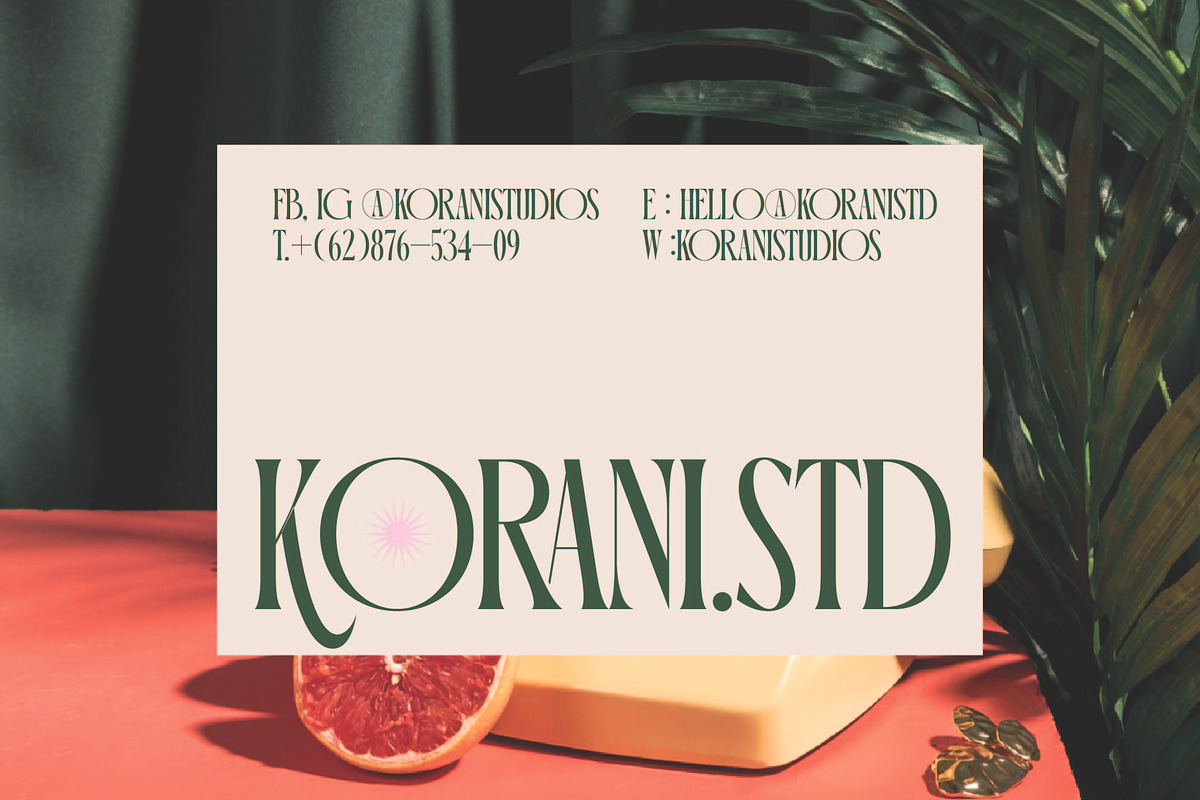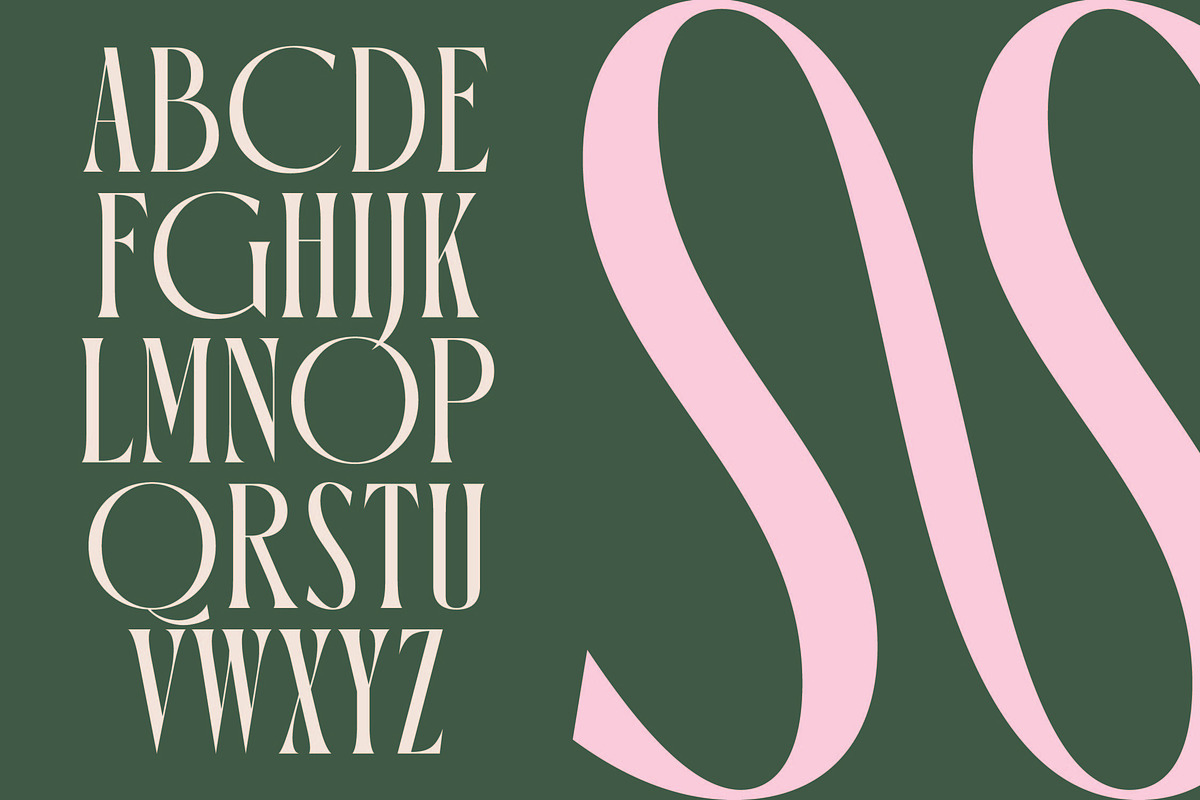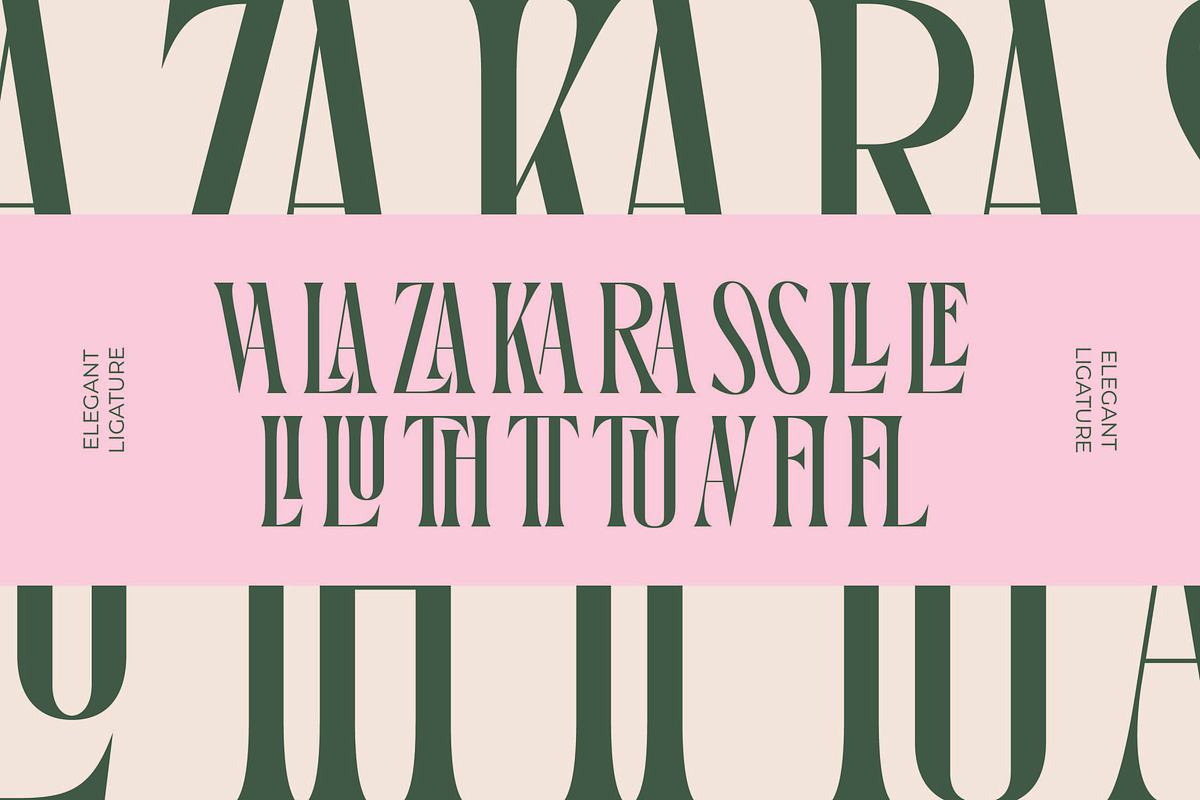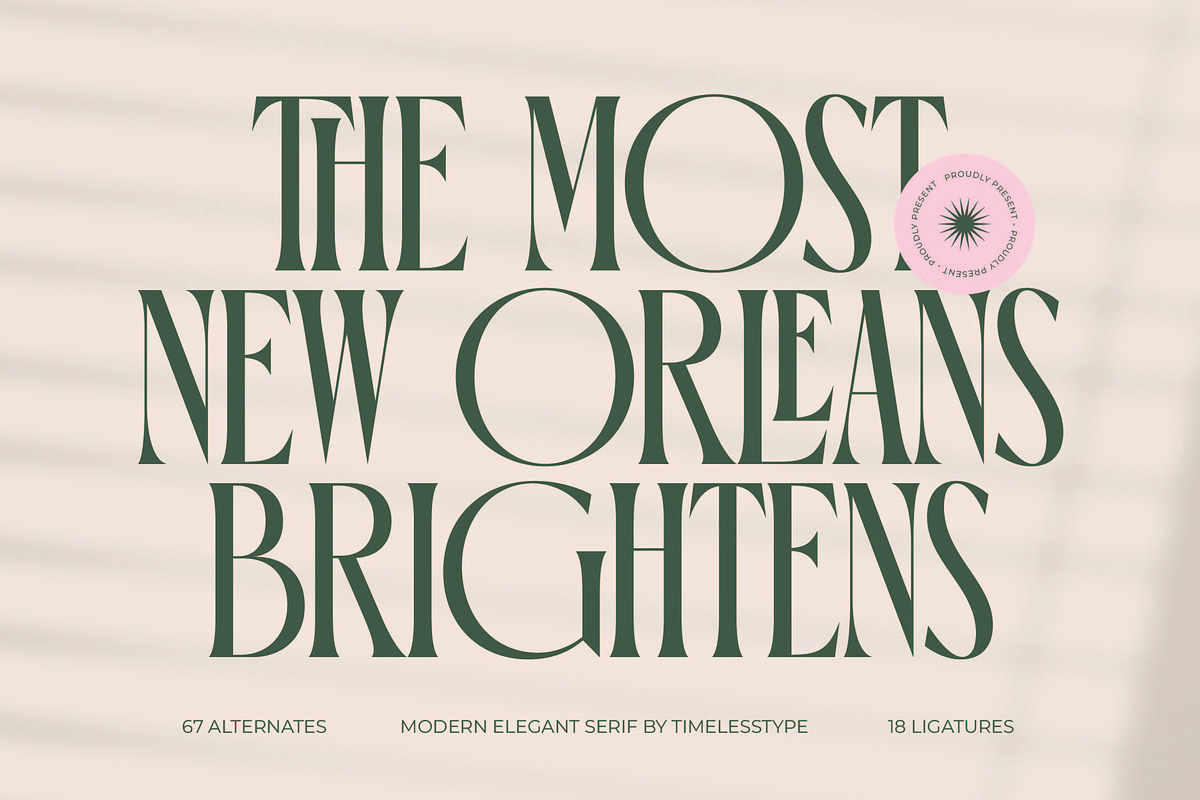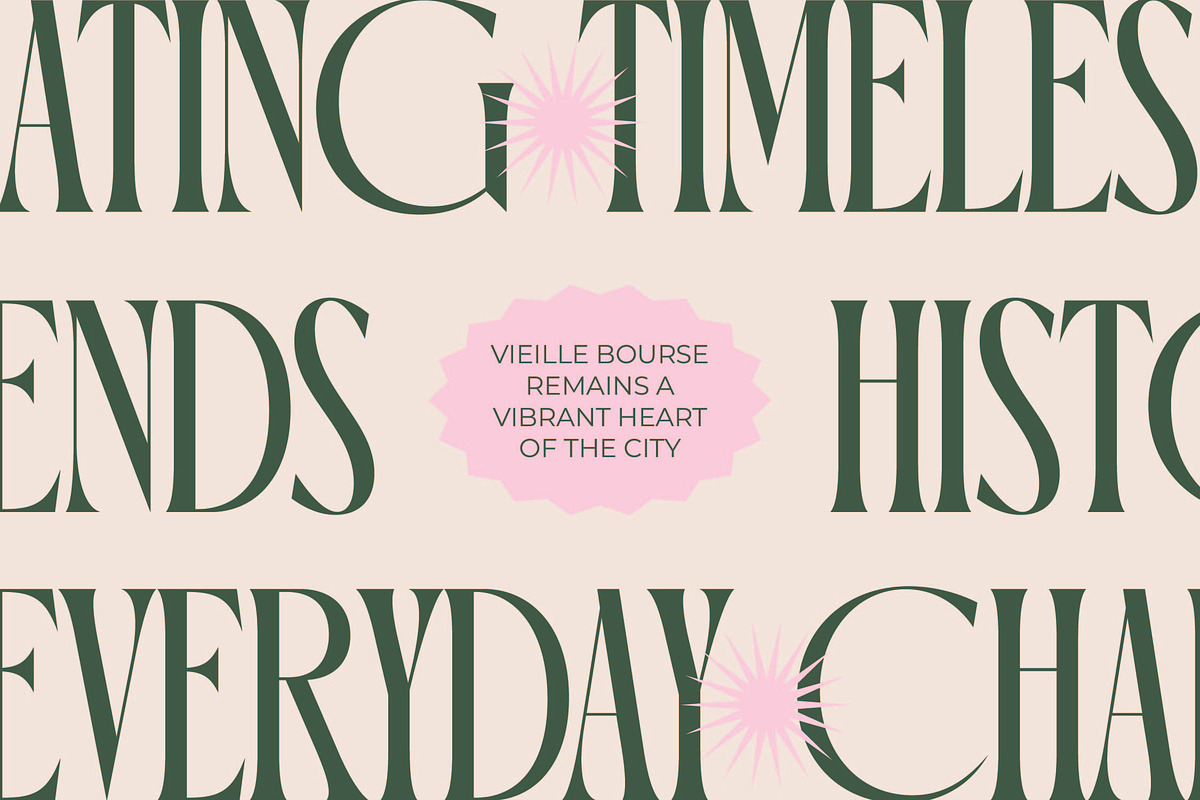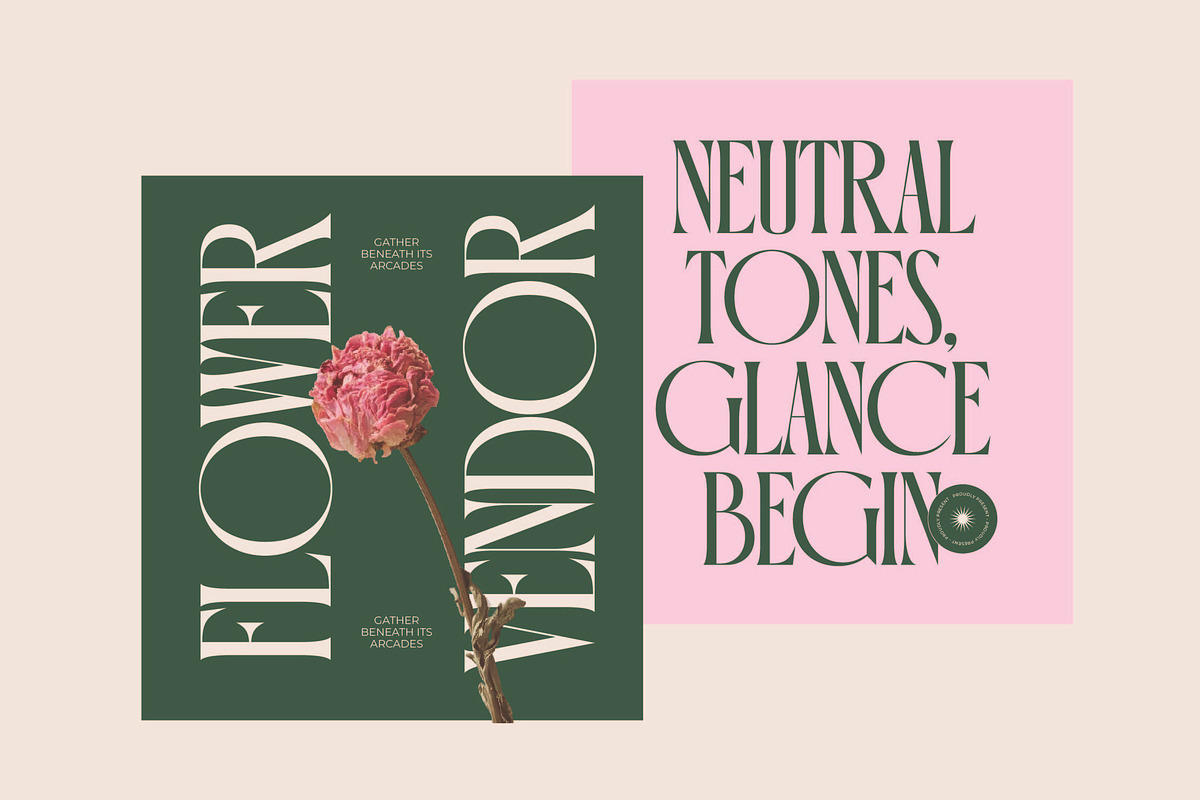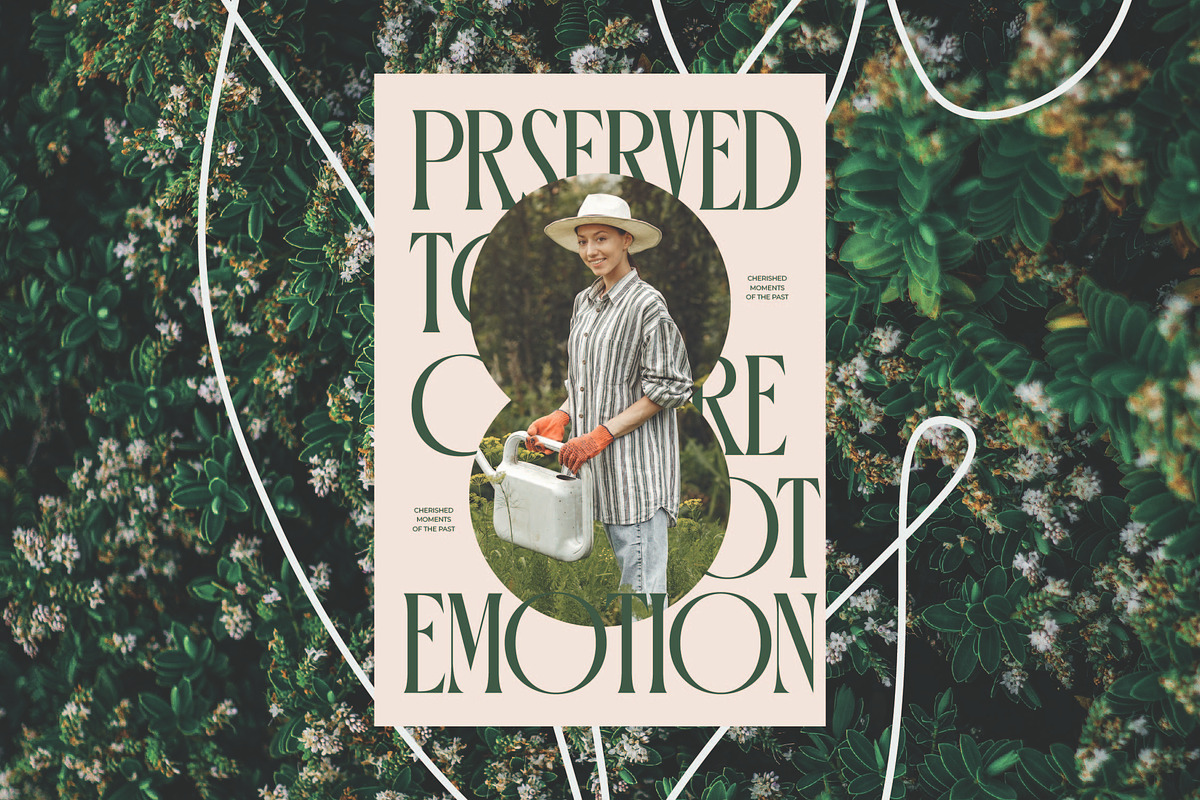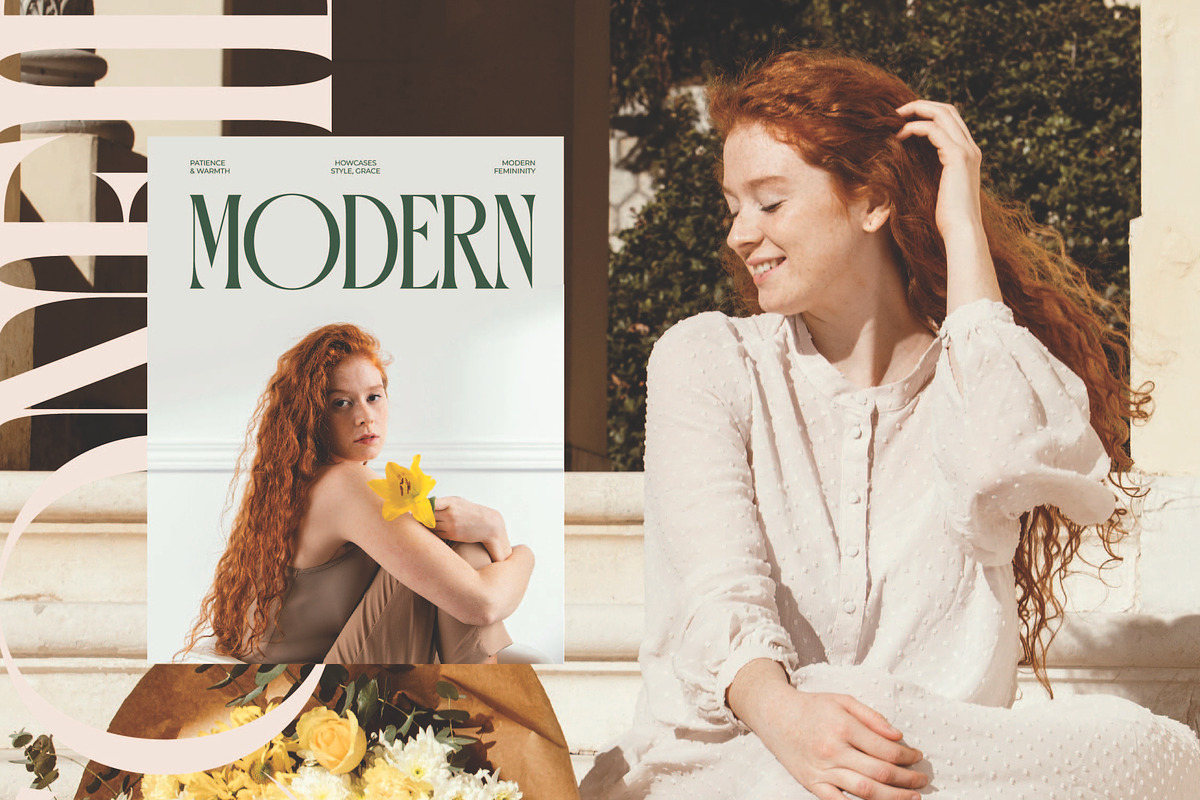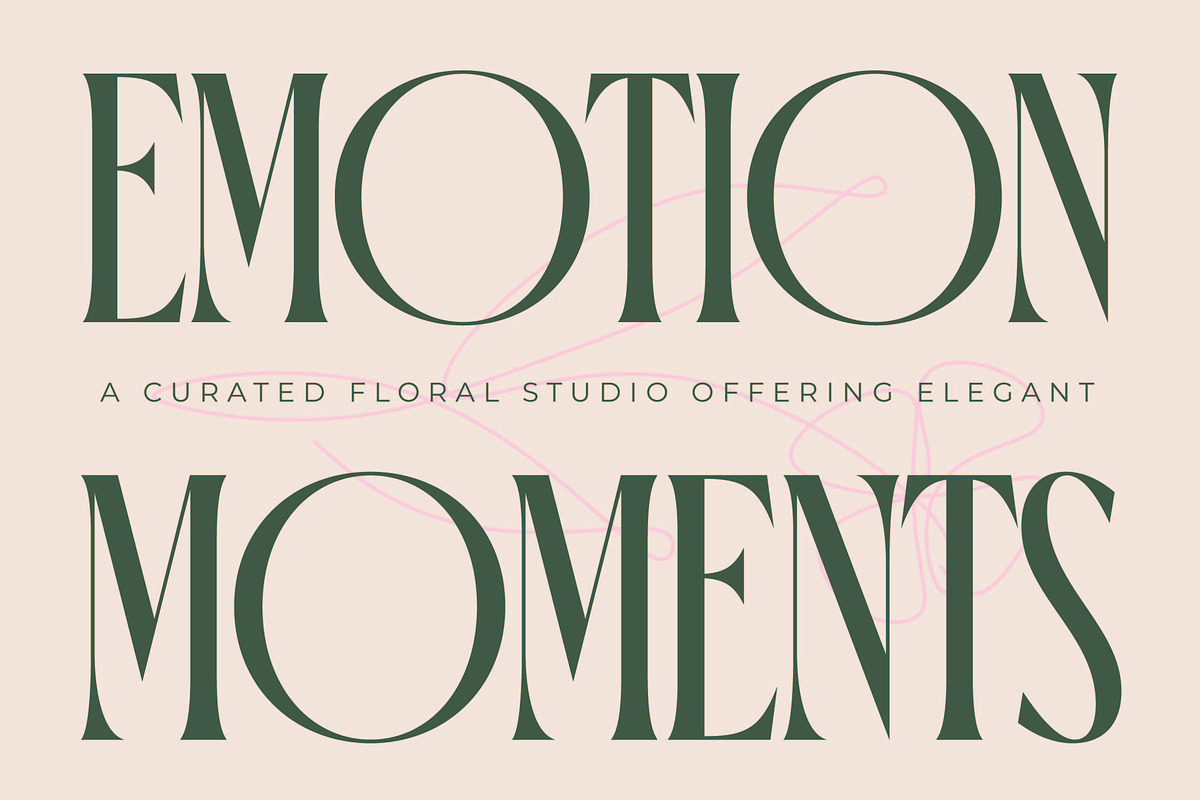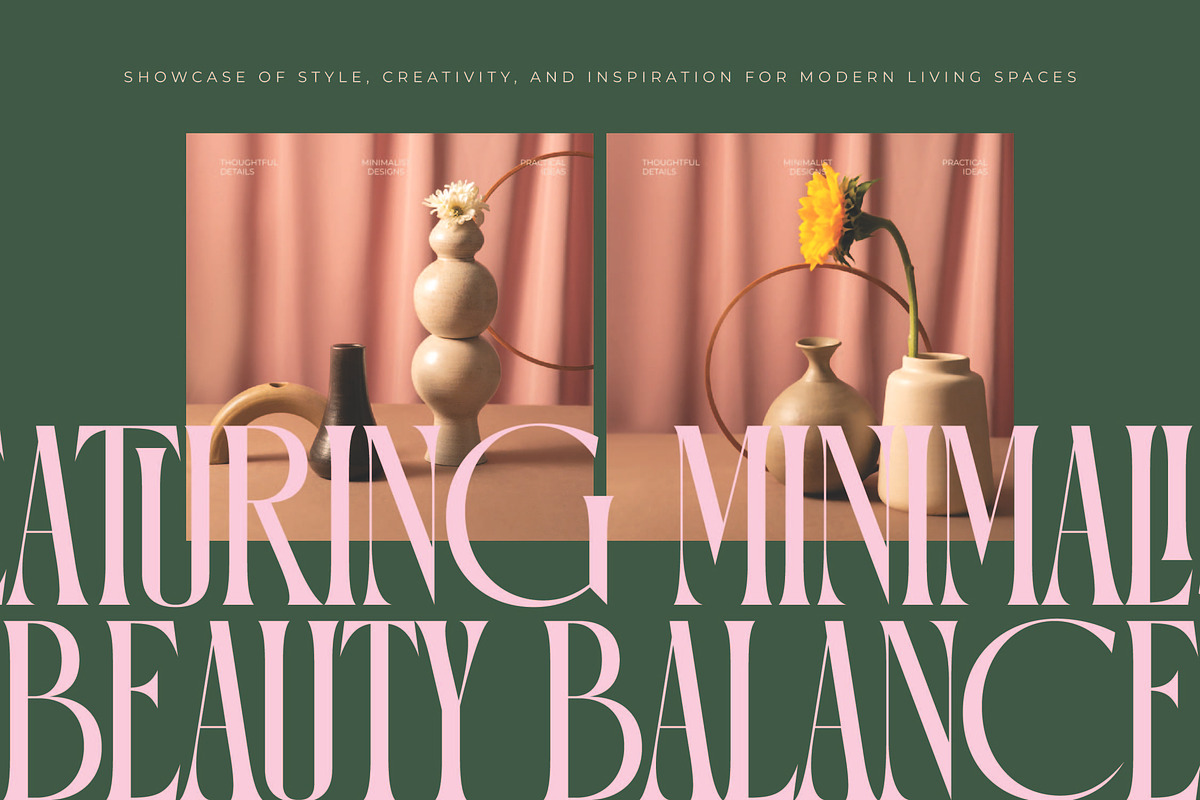
Orleans Brightens Modern Serif
Capture the essence of timeless elegance with Orleans Brightens, a typeface designed to infuse your creative projects with a sense of high-end sophistication and grace. This font stands as a testament to the beauty of refined letterforms that effortlessly command attention without saying a word.
Drawing inspiration from the romantic atmosphere of historic cityscapes and the crisp lines of mid-century fashion journals, this font balances traditional roots with a sharp, contemporary edge. It evokes the feeling of a sun-drenched afternoon in a French-quarter terrace, where every detail is deliberate and every curve tells a story.
As a premier modern serif display, this typeface delivers a powerful branding impact through its stunning luxury typography. The high-contrast serif details and slender stems make it an essential editorial font for designers who prioritize visual harmony and distinctive character in their professional layouts.
Tapping into the current modern serif trend, this typeface is a perfect example of how character-driven typography can elevate a brand's narrative. It meets the growing demand for editorial display fonts that offer both versatility and a unique voice, ensuring your work remains ahead of the curve in a crowded marketplace.
This versatile tool is tailor-made for high-impact logo design and comprehensive branding systems, excelling in the realms of fashion, packaging, and luxury wedding stationery. Its elegant silhouette ensures it remains the centerpiece of any editorial spread or digital marketing campaign.
Equipped with a vast library of 67 alternates and 18 unique ligatures, this font offers endless customization for bespoke designs. It includes comprehensive multilingual support and international characters to ensure your message resonates across global markets while maintaining its signature swashes and flair.